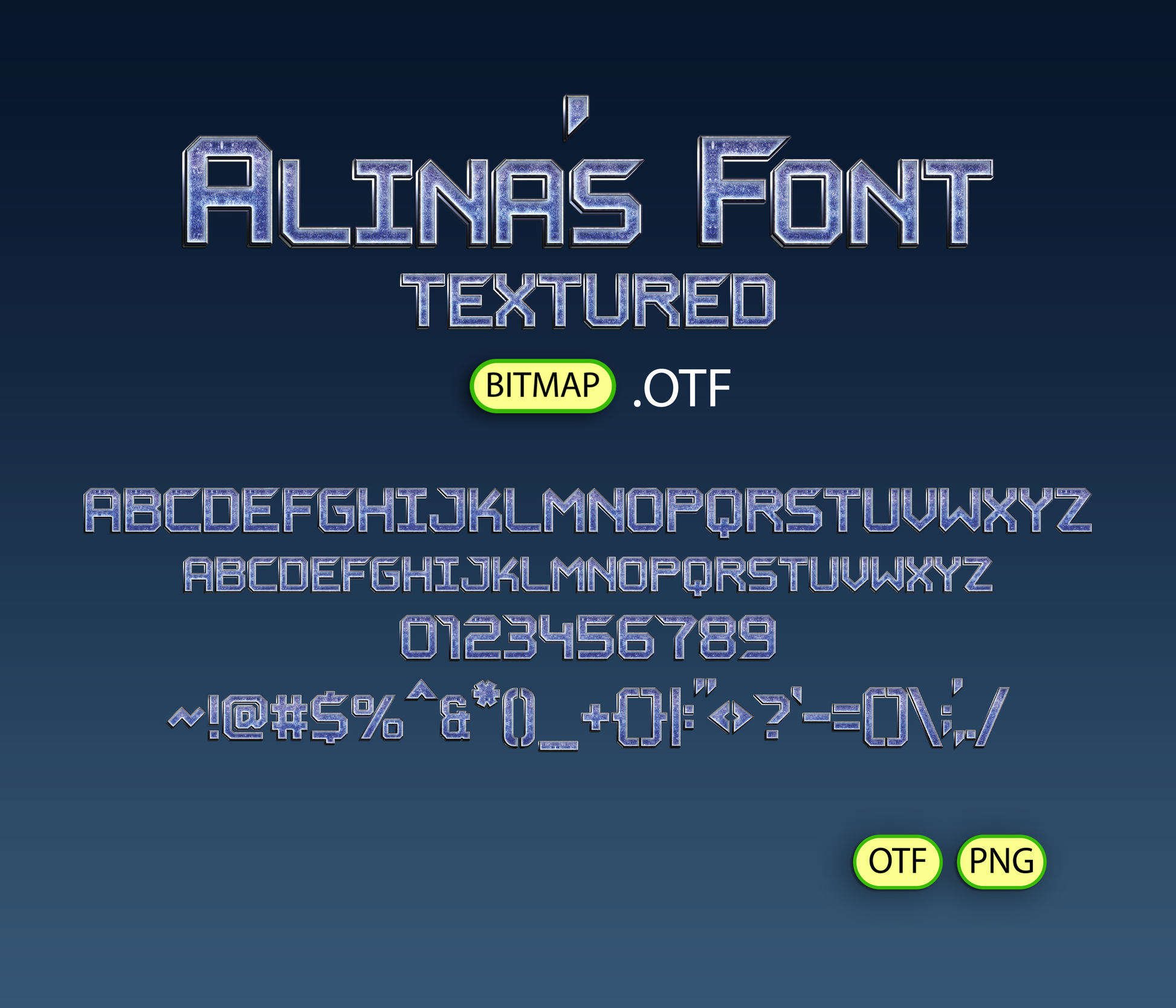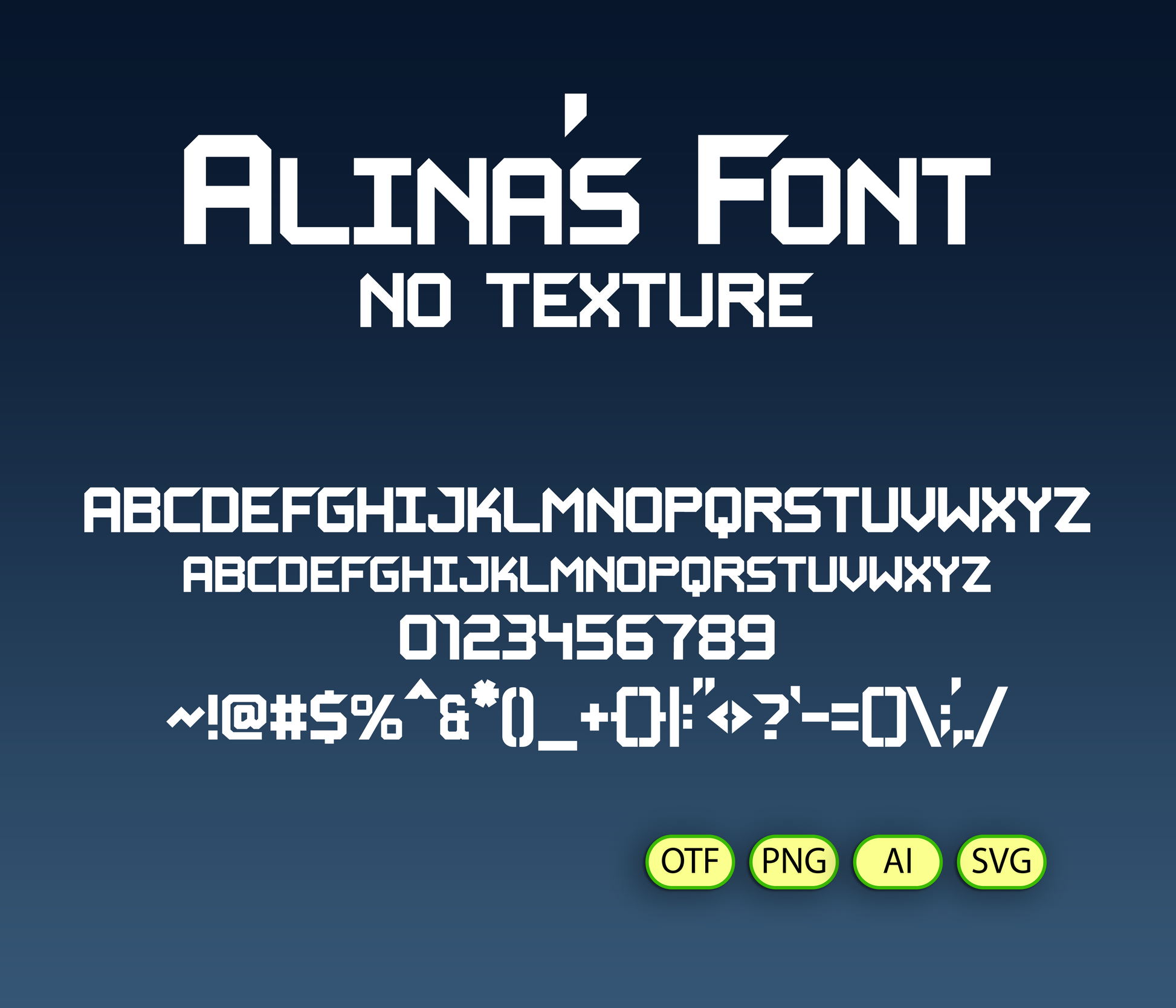
Mecha Guardian Font Textured
Step into the futuristic world of law enforcement with our Mecha Guardian font, capturing the essence of mechanical justice and urban crime-fighting. Perfect for sci-fi fans, cyberpunk creators, event organizers, and designers, this font brings the dynamic, metallic spirit of robotic peacekeeping to your projects. Create retro-futuristic materials, merchandise, or digital content with the high-tech energy of automated law enforcement.
Our Mecha Guardian font features industrial, mechanical lines and chrome-like characters reflecting the world of cybernetic justice. Ideal for:
1. Event Promotions: Create commanding invites, posters, and banners for sci-fi screenings, conventions, and themed parties that capture the spirit of future law enforcement
2. Merchandise Design: Perfect for t-shirts, posters, and accessories that showcase the metallic aesthetic of cybernetic peacekeeping
3. Digital Media: Enhance websites, blogs, and social media with dynamic headers and graphics that express the power of mechanical justice
4. Sci-Fi Content: Add authentic flair to fan art, cyberpunk projects, and creative designs inspired by robotic law enforcement
5. Personal Projects: Bring future-tech excitement to scrapbooking, DIY crafts, and home decor inspired by the world of automated policing
Our font pays tribute to the iconic world of cybernetic law enforcement, empowering your designs with its mechanical and authoritative spirit. Whether crafting promotional materials, designing merchandise, or adding a dynamic touch to personal projects, this font communicates the bold essence of future justice. Ready to inject cyber-tech power into your creations? This font is your key to exciting, impactful design.